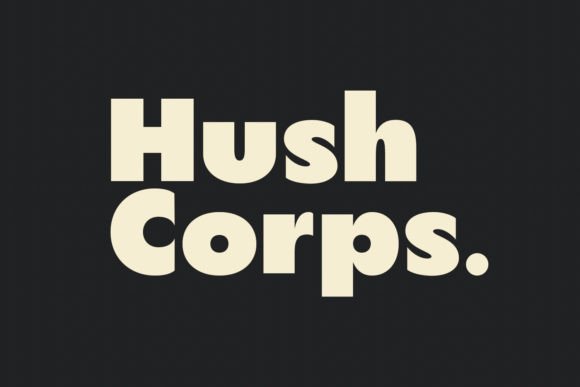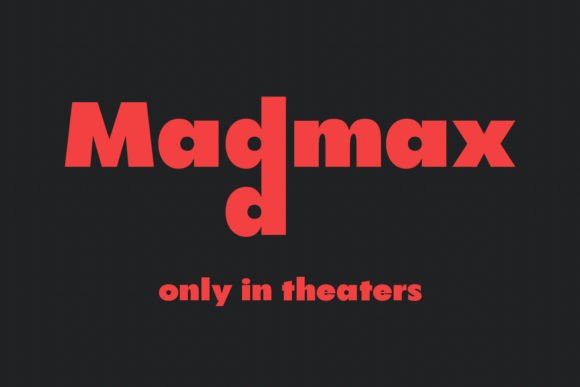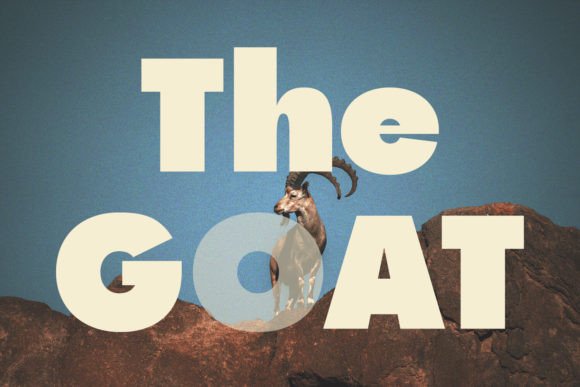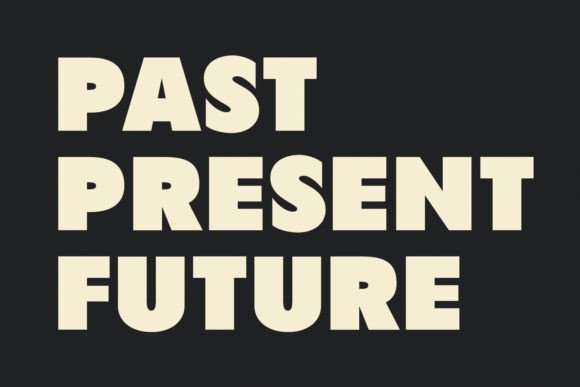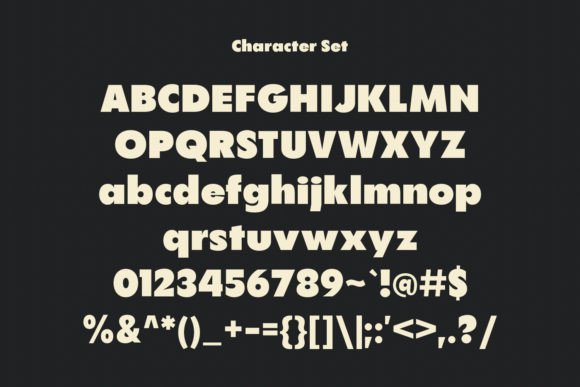
Introduction to Polette Font
Polette is a geometric sans display font.
Bold stroke, fun character with a bit of ligatures To give you an extra creative work.